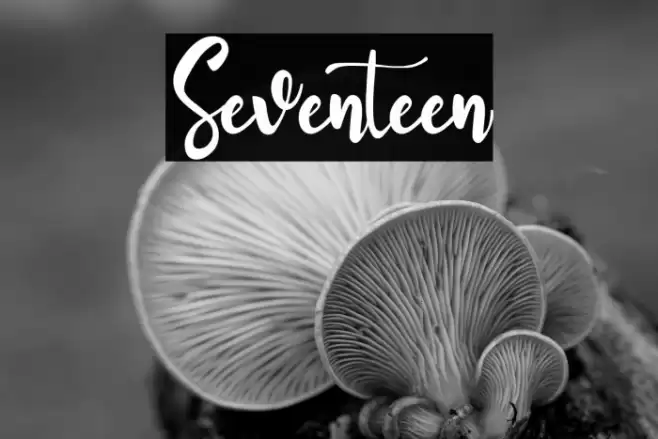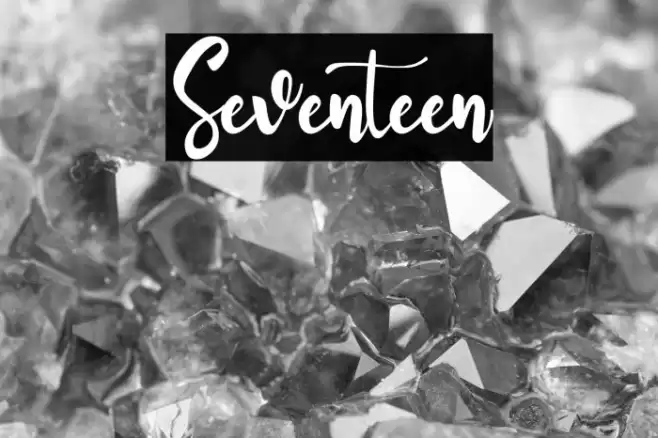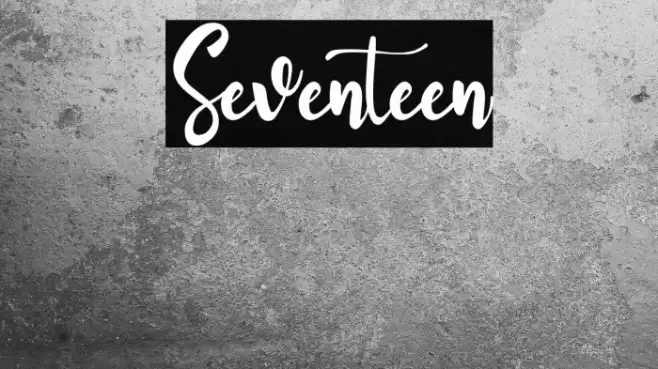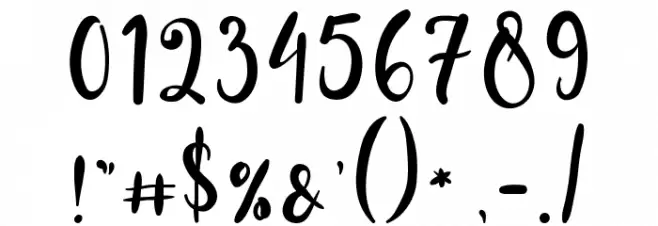
Seventeen Font
Seventeen Description
This font features a lively and expressive script style, characterized by its flowing and interconnected letterforms. The uppercase letters exhibit a playful and dynamic quality, with varying stroke widths that add a sense of movement and energy. The lowercase letters maintain a cohesive and harmonious appearance, with smooth curves and elegant loops. The numerals are bold and clear, ensuring readability while maintaining the font's artistic flair. Special characters are thoughtfully designed to complement the overall style, making this font versatile for creative projects.
A lively and expressive script font with flowing, interconnected letterforms from Regular fonts.
- Proposed Projects: Ideal for wedding invitations, greeting cards, branding, and creative posters.
- Use Case: Logos, Headlines, Invitations